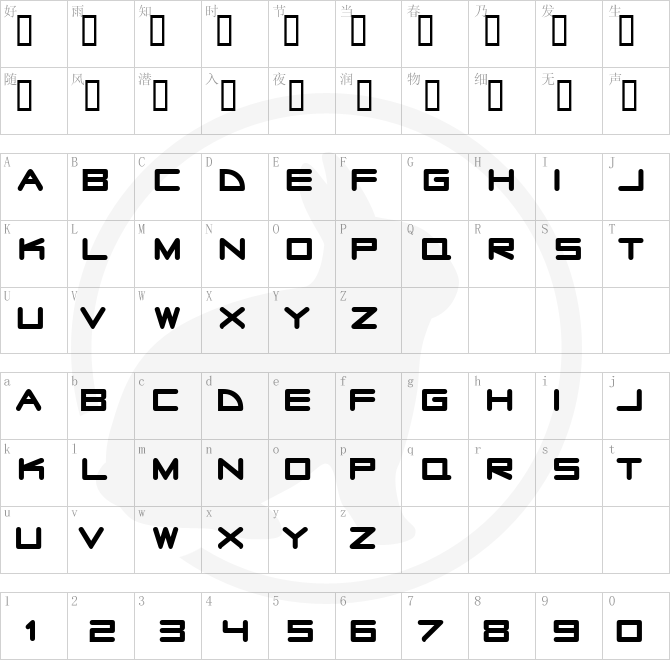
- Font Name:Radio Stars
Radio-Stars-copy-1-.ttf is a very beautiful artistic font, Radio-Stars-copy-1-.ttf is widely used in the design and printing of various books and pictures,Radio-Stars-copy-1-.ttf has a strong visual impact,Radio-Stars-copy-1-.ttf is a commonly used font in newspapers, magazines and books, and is used in posters, e-commerce Poster design, store design, logo design, font design and other fields.Radio-Stars-copy-1-.